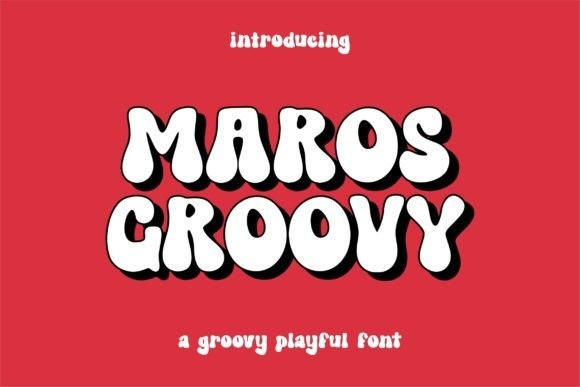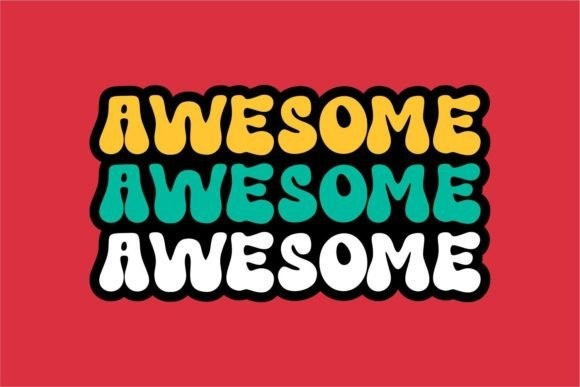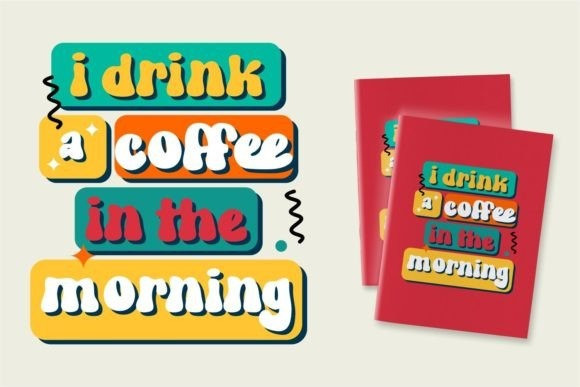
Maros Groovy Font
Maros Groovy is a fun and playful display font. With a cheerful personality and a funky, retro vibe, this font is perfect for all your designs that require a cool, whimsical look.